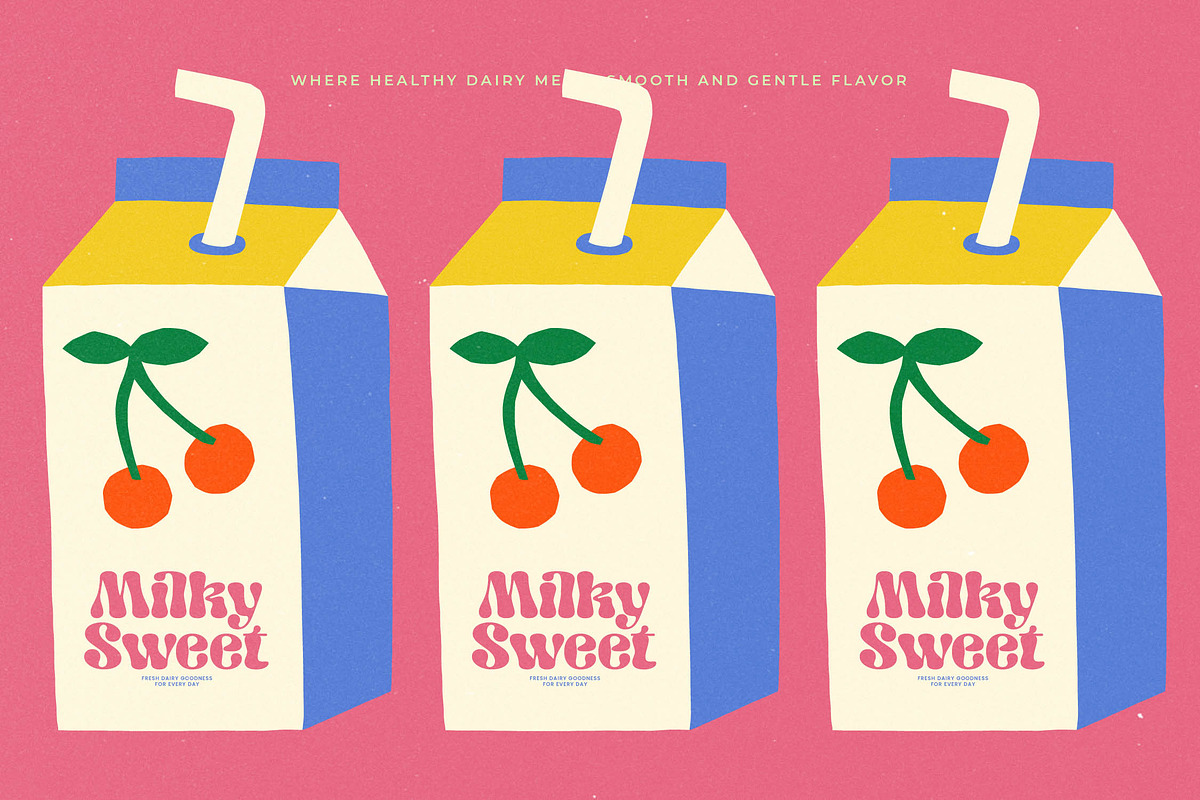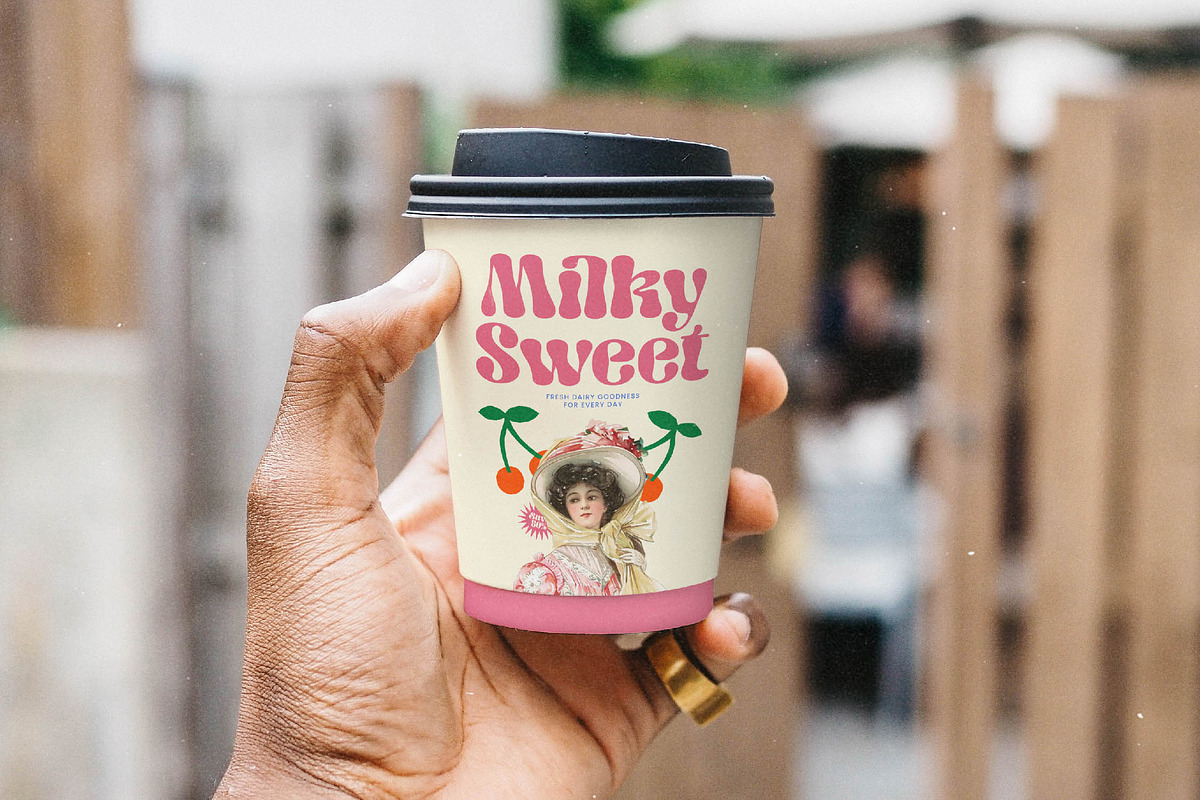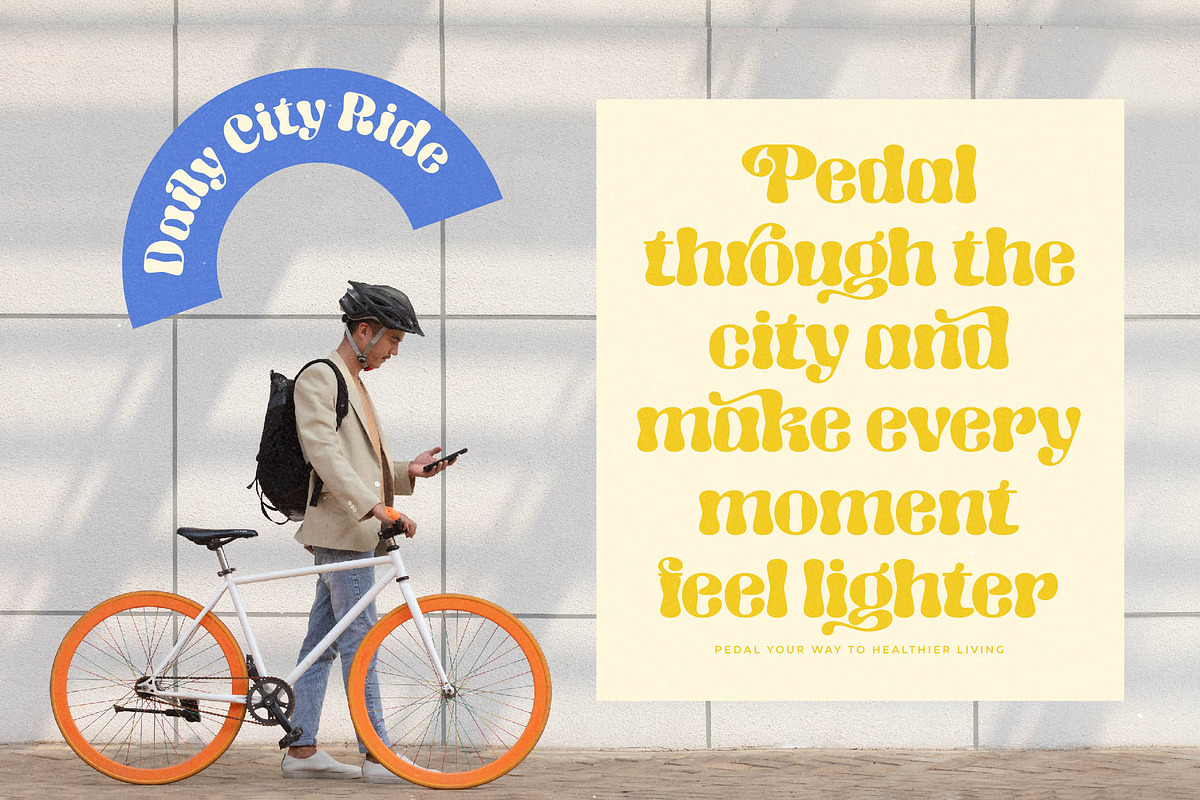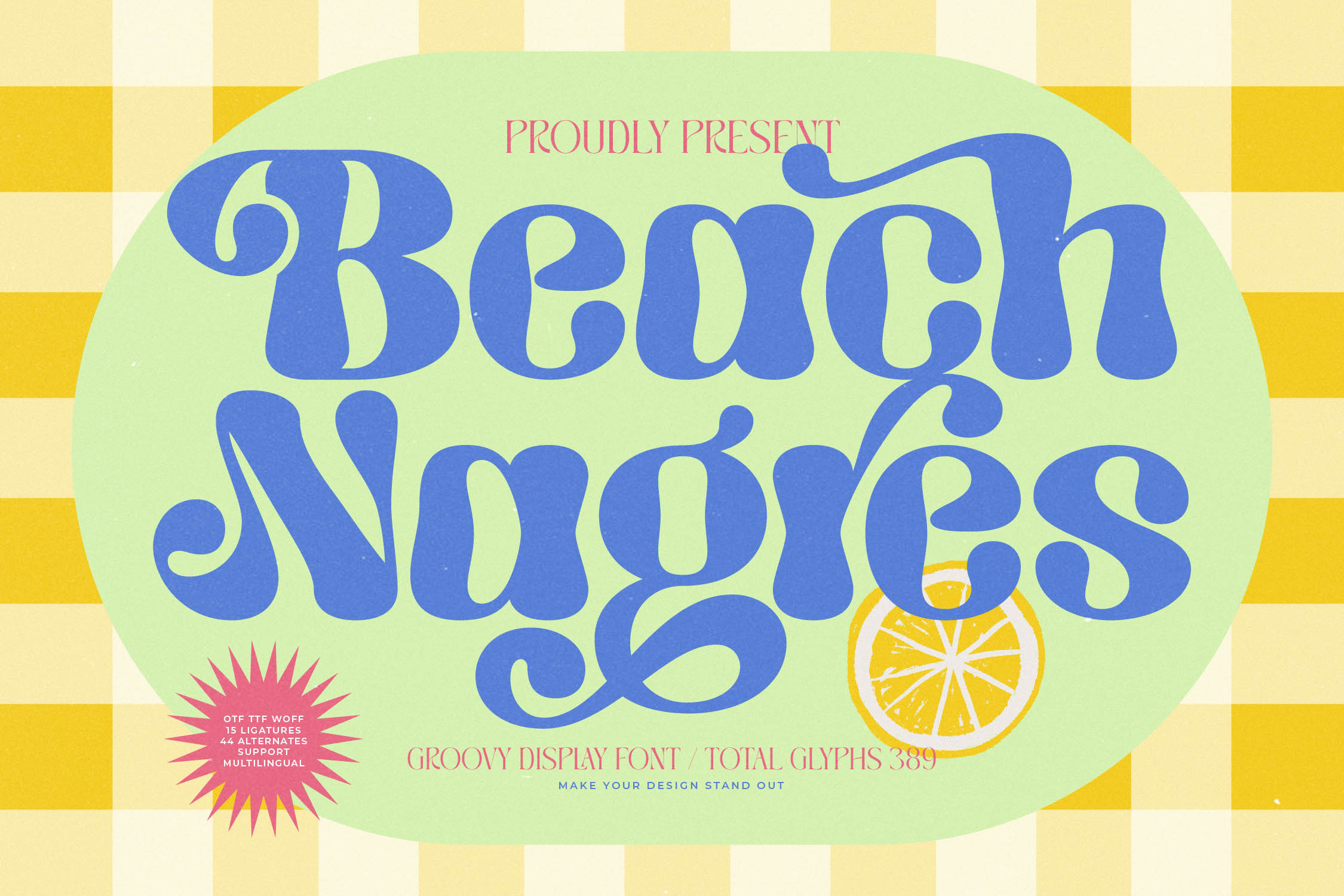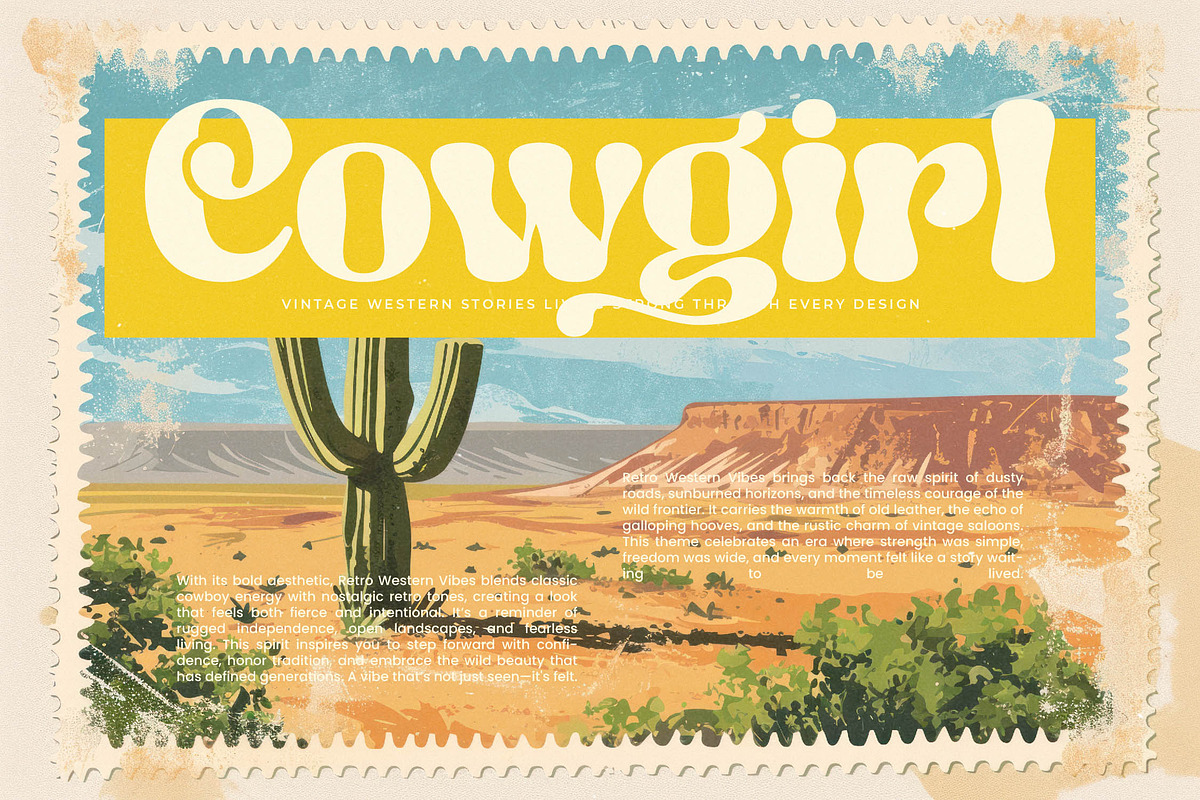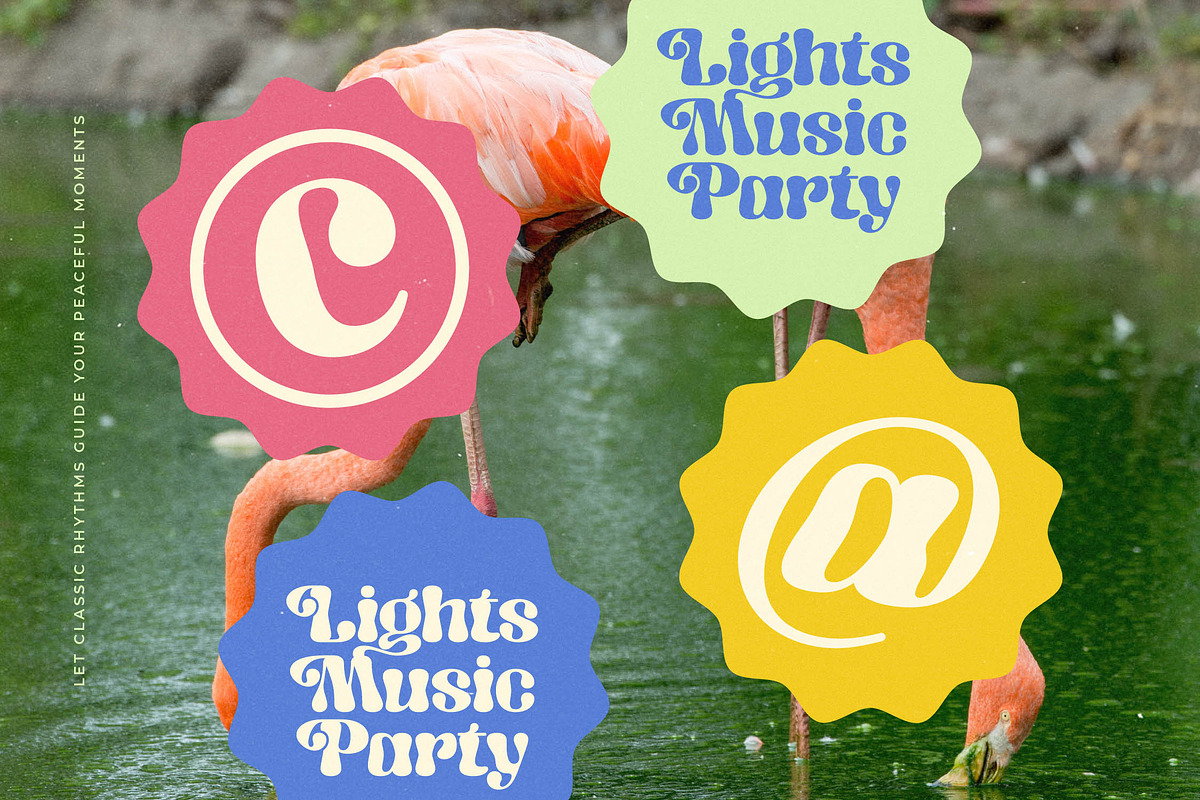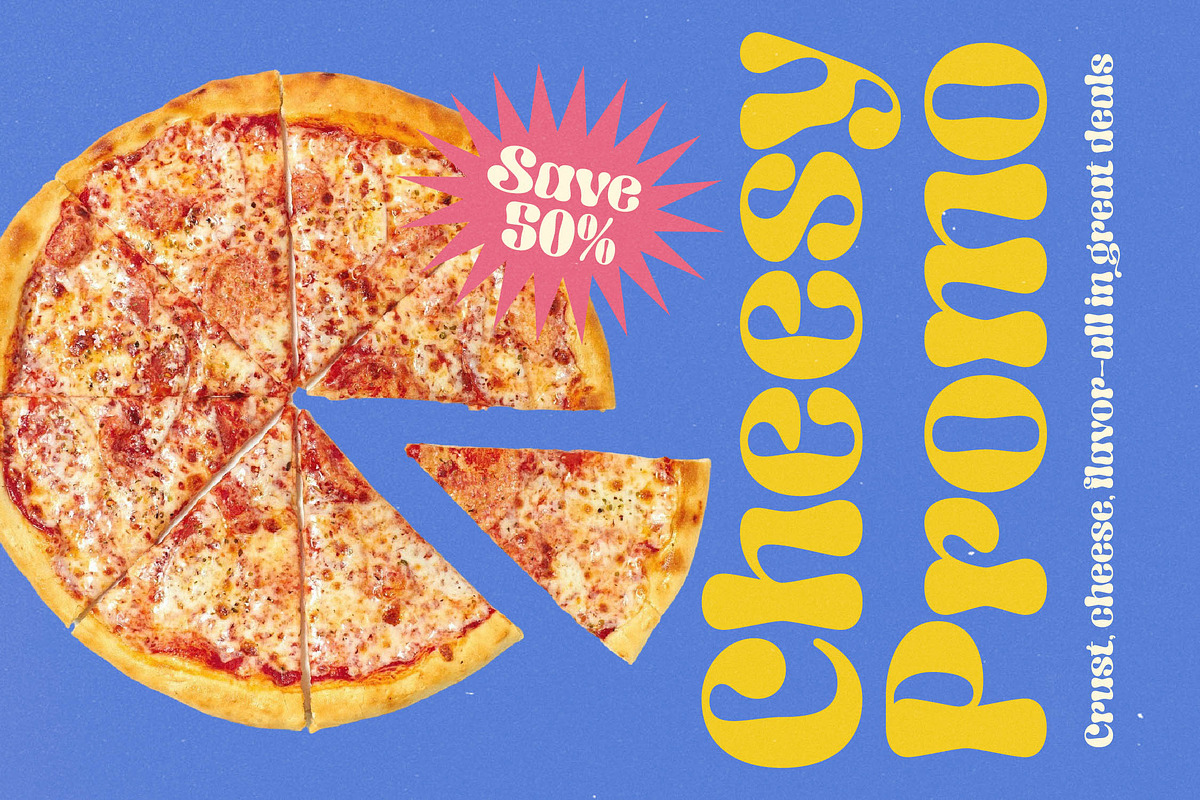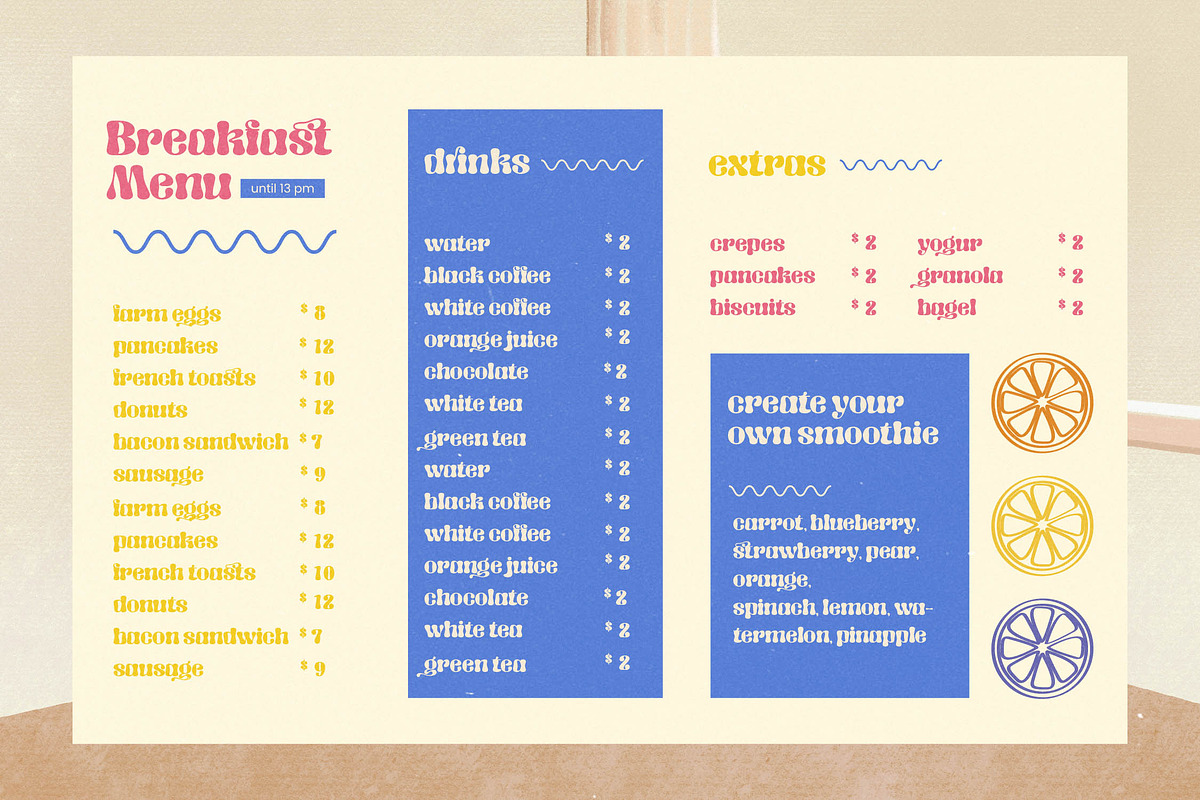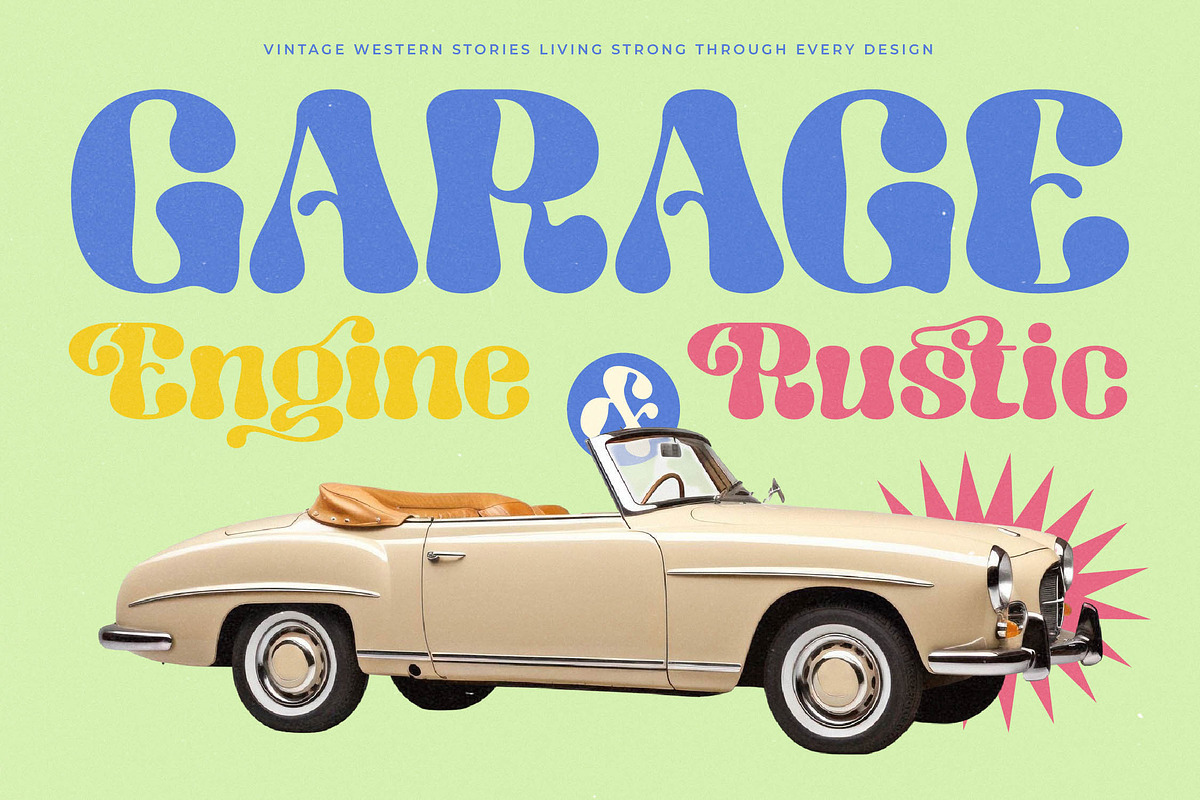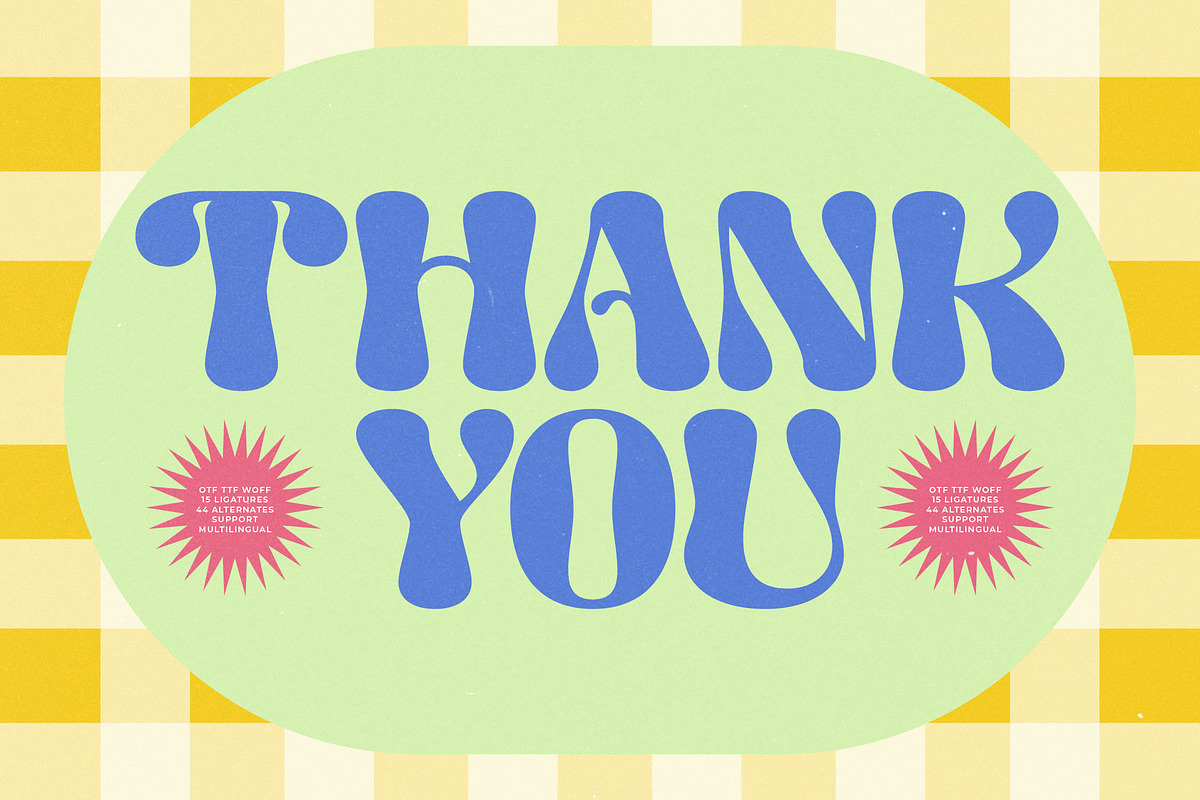
Beach Nagres Groovy Display Font
Beach Nagres brings a rhythmic, sun-soaked energy to your creative projects, blending nostalgic charm with a contemporary flair. It is a typeface designed to evoke the warmth of a coastal afternoon while maintaining a sharp, professional edge for high-end design.
Inspired by the vibrant flow of 1970s surf culture and the zesty freshness of summer citrus, this font bridges the gap between vintage soul and modern luxury. Every curve and terminal is sculpted to create a fluid visual narrative that feels both organic and intentional.
This modern serif display is built for high-stakes branding impact, serving as a premier choice for luxury typography that refuses to be ignored. With its high-contrast serif details, it functions as a powerful editorial font that transforms simple layouts into sophisticated masterpieces.
Perfectly positioned within the current modern serif trend, this typeface offers a unique interpretation of character-driven typography that resonates with today's visual culture. It meets the demand for editorial display fonts that prioritize expressive motion and artistic storytelling.
Leverage its versatility for iconic logo design and comprehensive branding systems, especially within the world of premium packaging and skincare. It is equally at home in high-fashion editorial layouts, boutique wedding invitations, or any fashion project requiring a touch of groovy elegance.
The font is technically robust, featuring a rich collection of ligatures and alternates to expand your creative possibilities. Full multilingual support and a wide range of international characters ensure global reach, while decorative swashes add that final bespoke touch to your work.